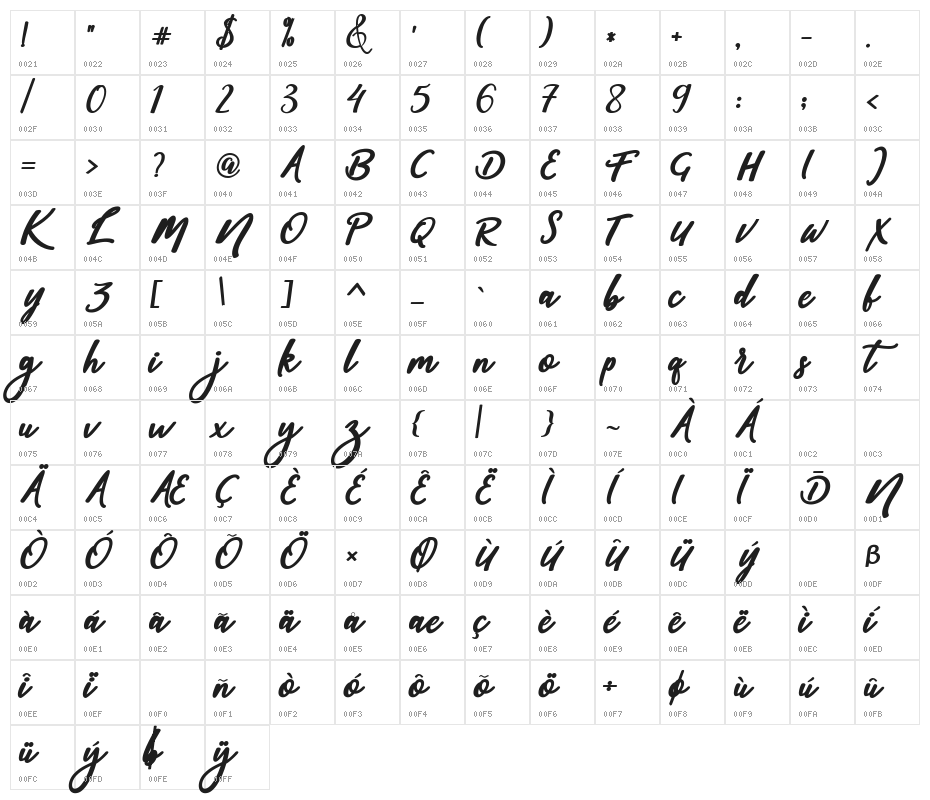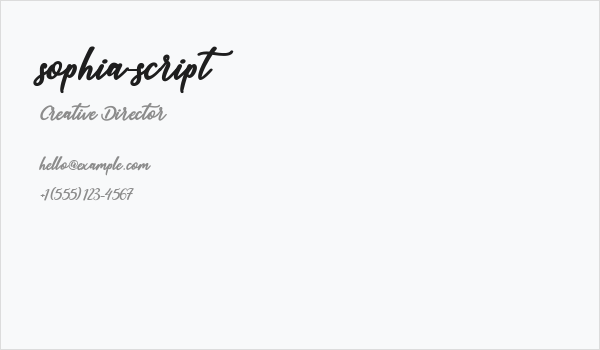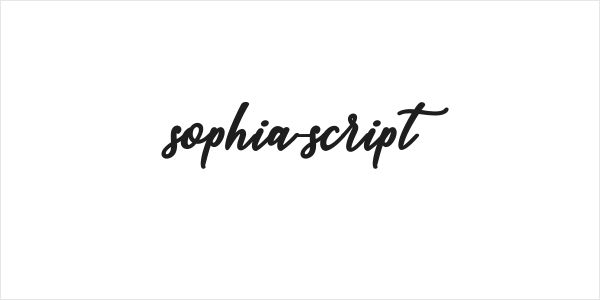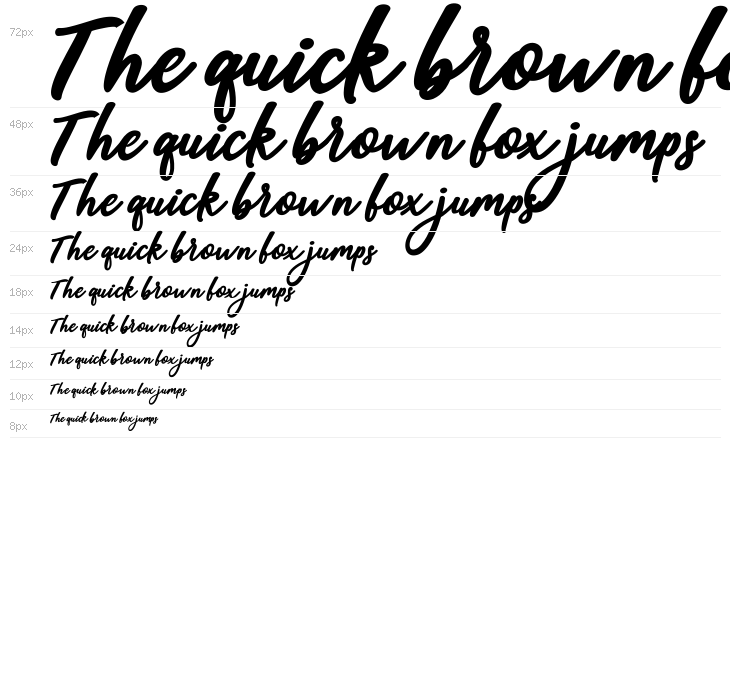
sophia-script Font
sophia-script Description
This script font exudes elegance and fluidity, characterized by its smooth, flowing strokes and cursive style. The uppercase letters are slightly more formal, with a graceful slant and consistent stroke width, while the lowercase letters maintain a charming, handwritten feel. The numerals and special characters are crafted with the same attention to detail, ensuring a cohesive look across all characters. The font's overall appearance is both sophisticated and approachable, making it suitable for a variety of design applications.
| Proposed Projects | Ideal for wedding invitations, greeting cards, branding, and elegant packaging designs. |